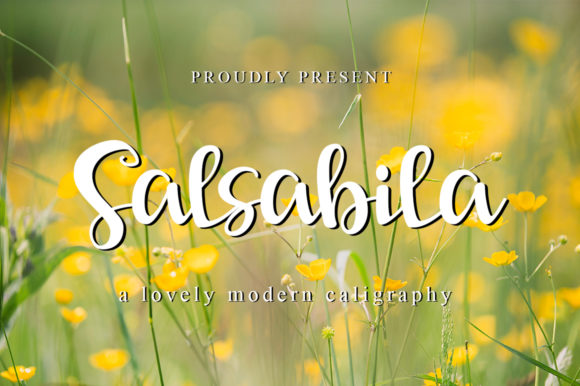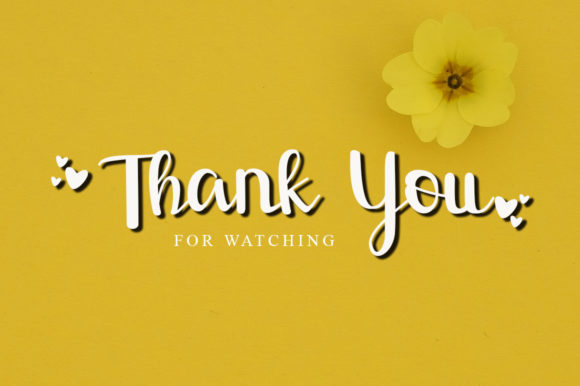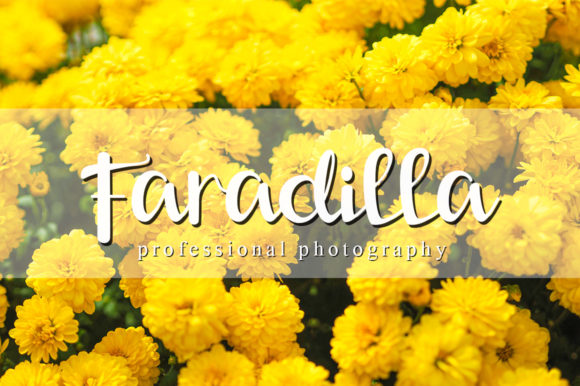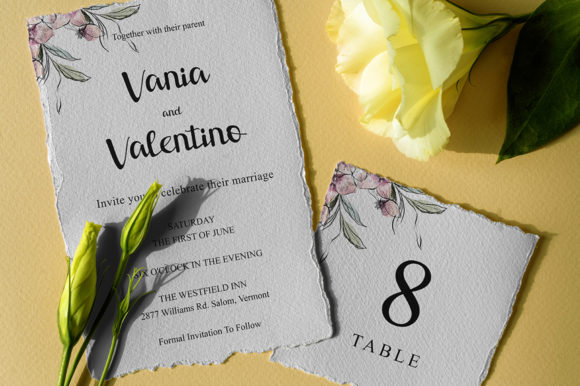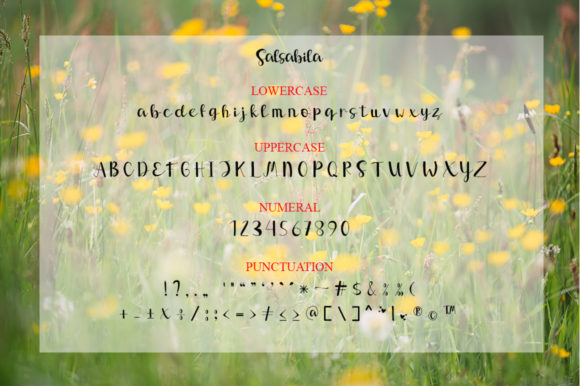
Salsabila Font
About Salsabila Font
Salsabila is an elegant and flowing handwritten font. It looks stunning on wedding invitations, thank you cards, quotes, greeting cards, logos, business cards and every other design which needs a handwritten touch.